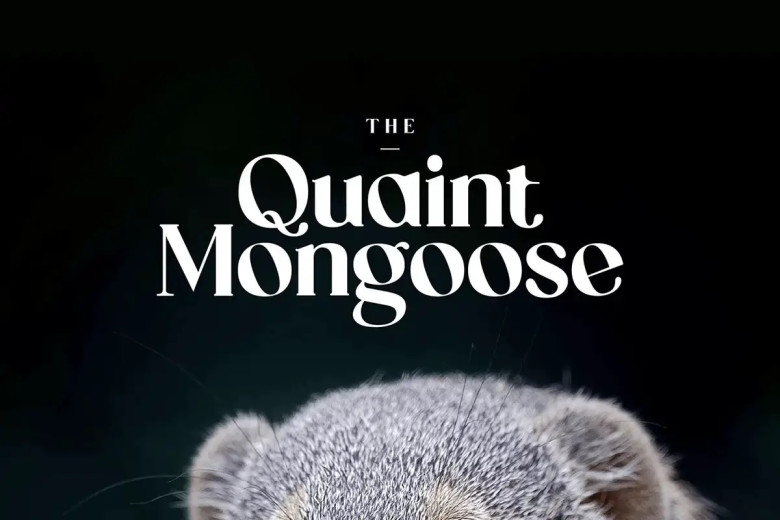
The Quaint Mongoose Font
The Quaint Mongoose Font is an original show serif typeface. With its charming appearance that blends traditional aesthetics with contemporary design elements, and unique and quirky letters that add personality and whimsy to any design project,
The Quaint Mongoose adds fun and character to any project – be it retro posters, playful logos or captivating headlines. Take advantage of its charm to imbue your designs with its distinctive charm!
The Quaint Mongoose Serif Font